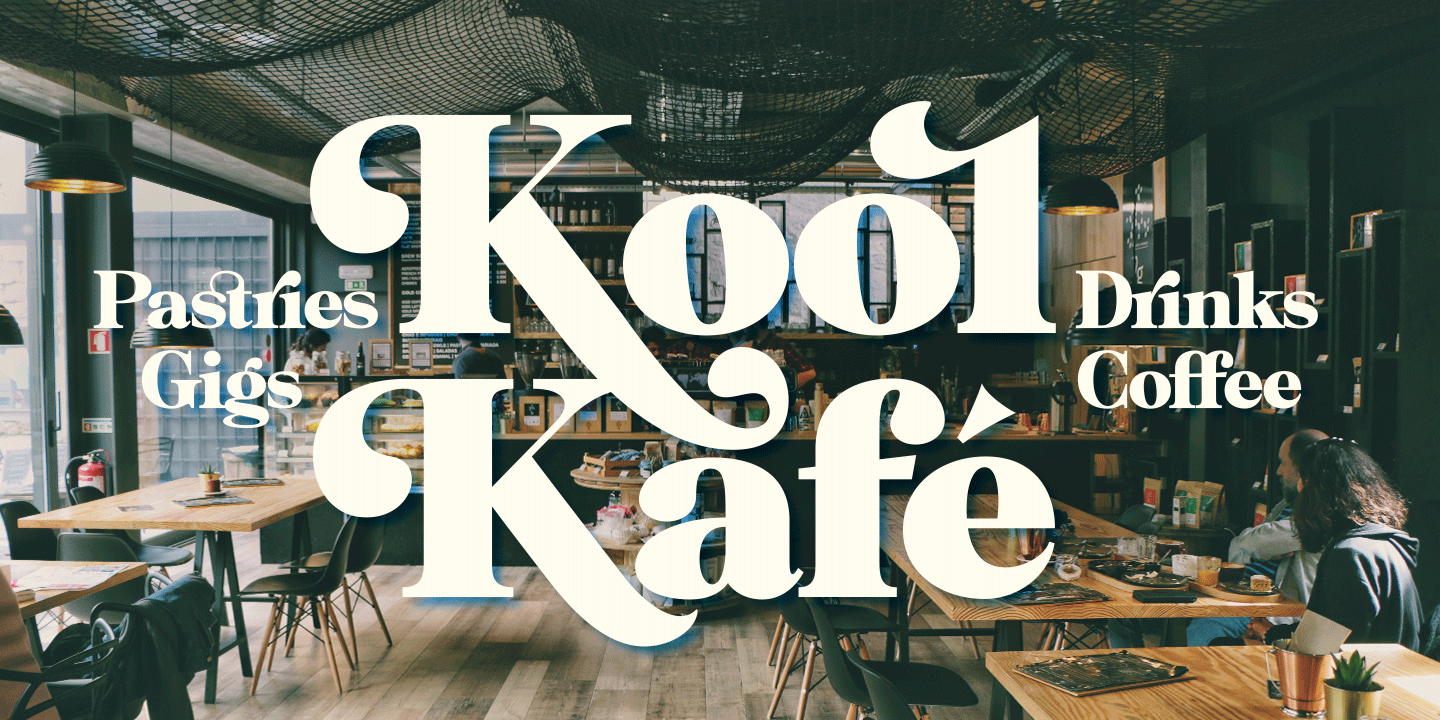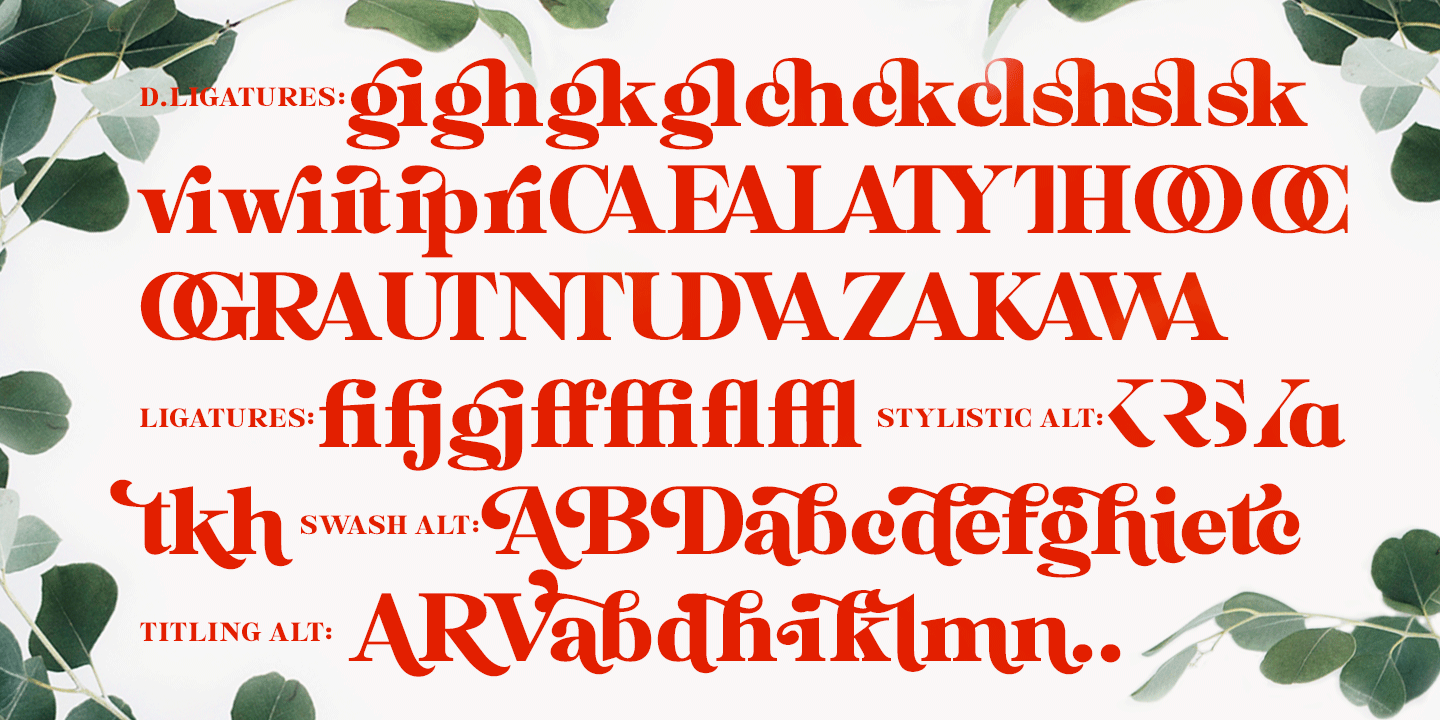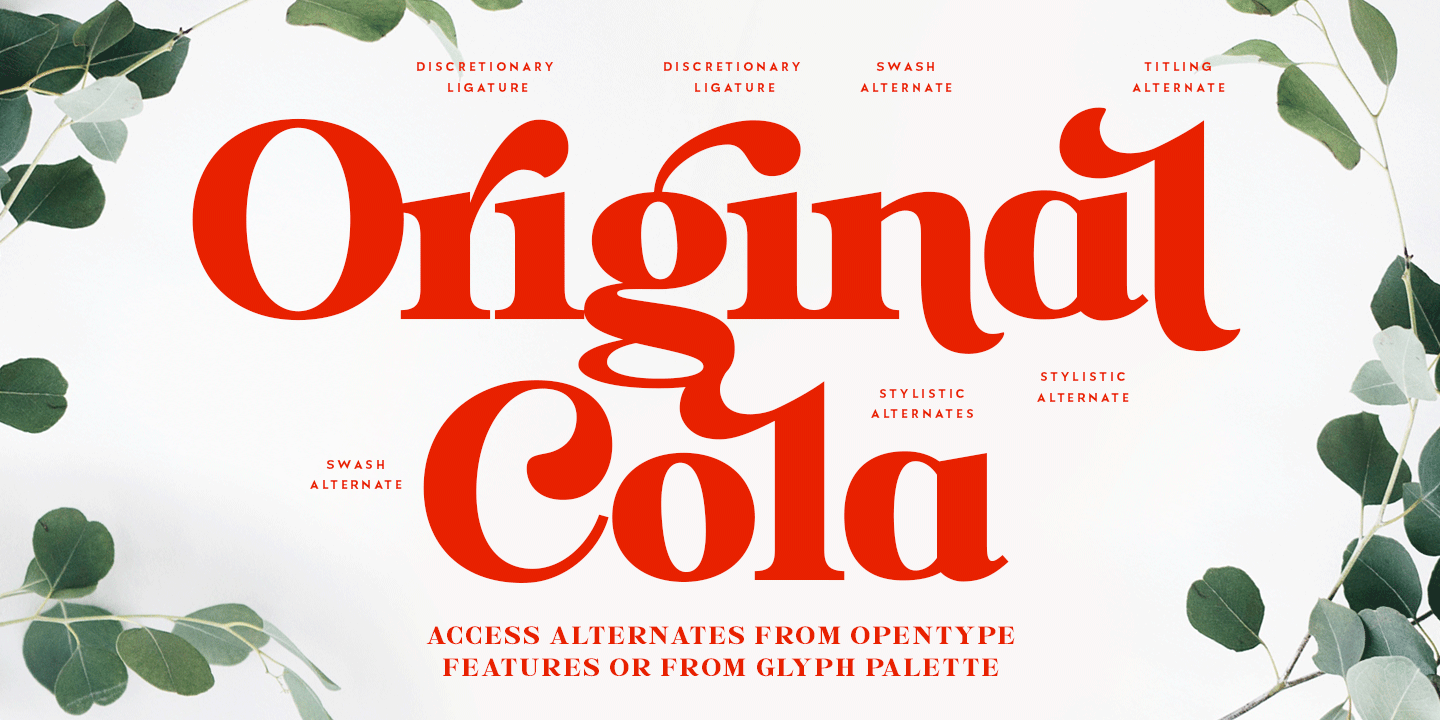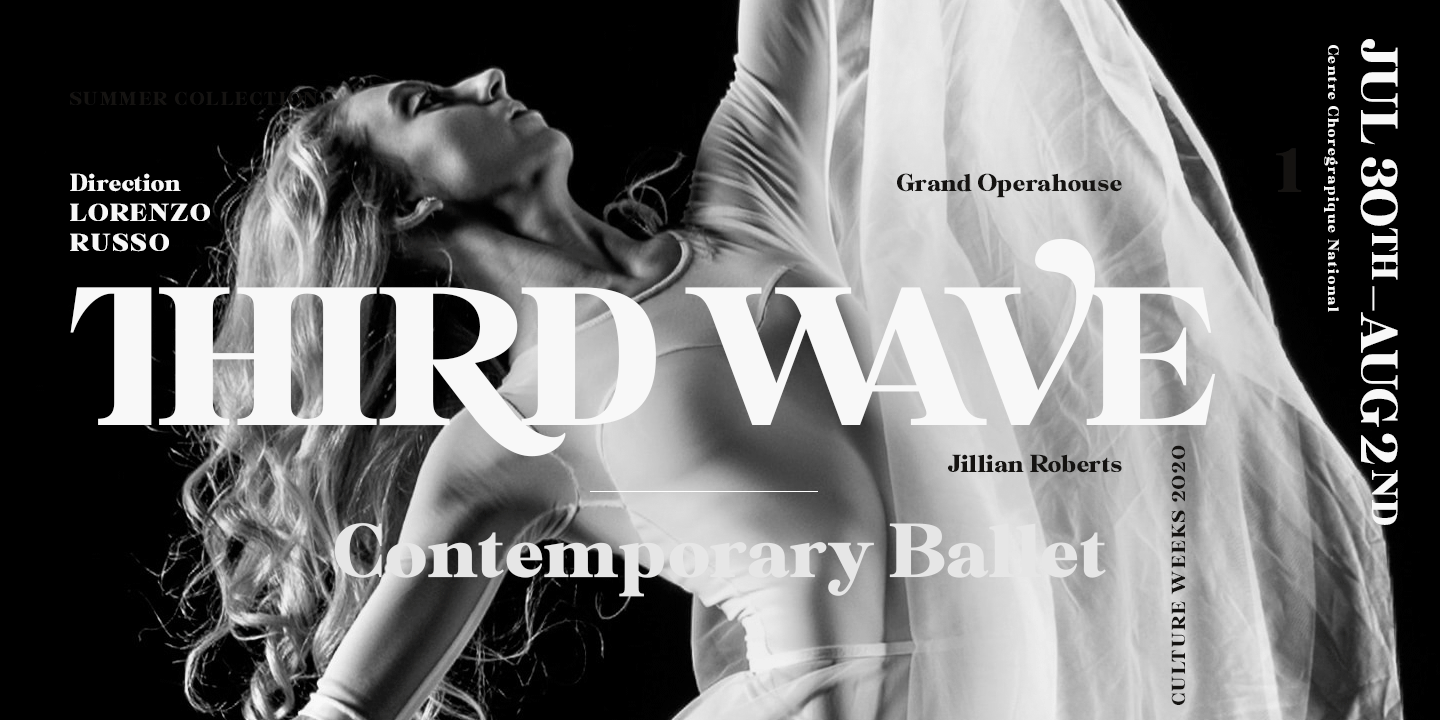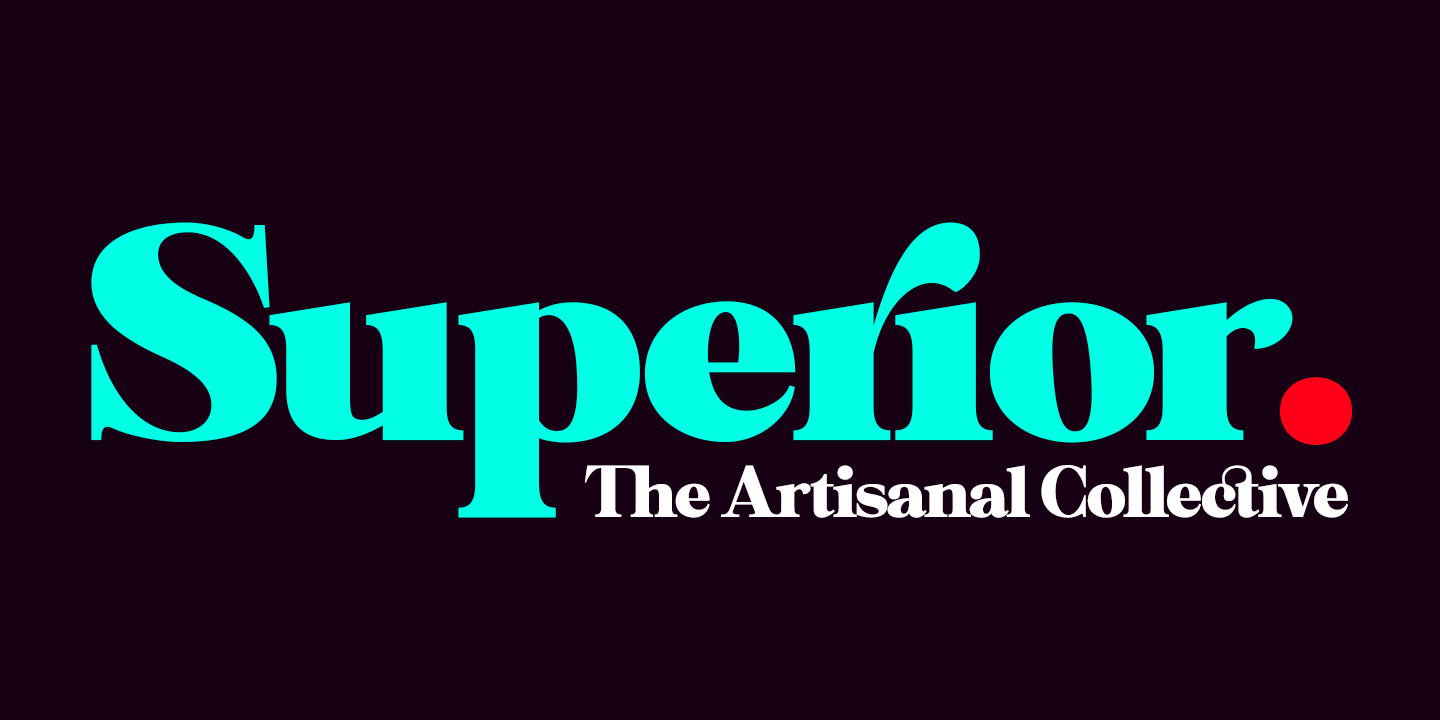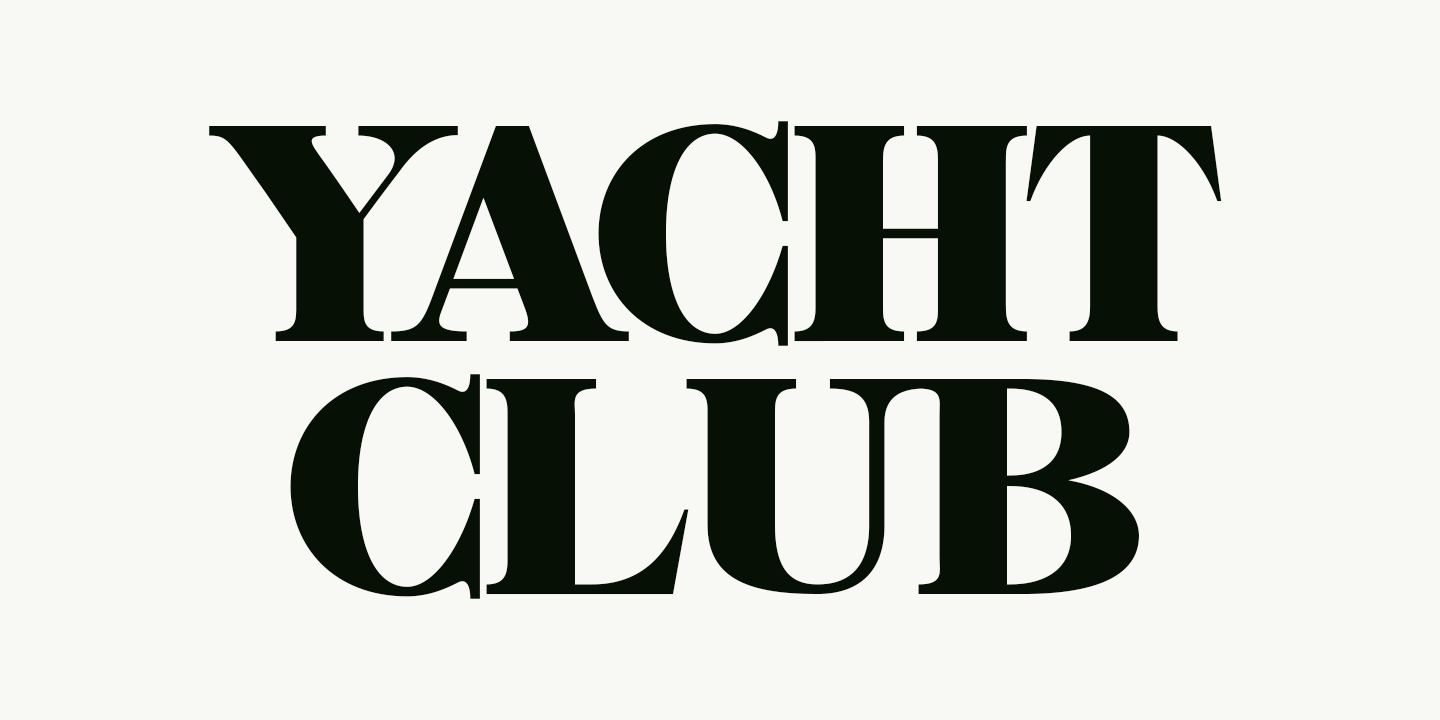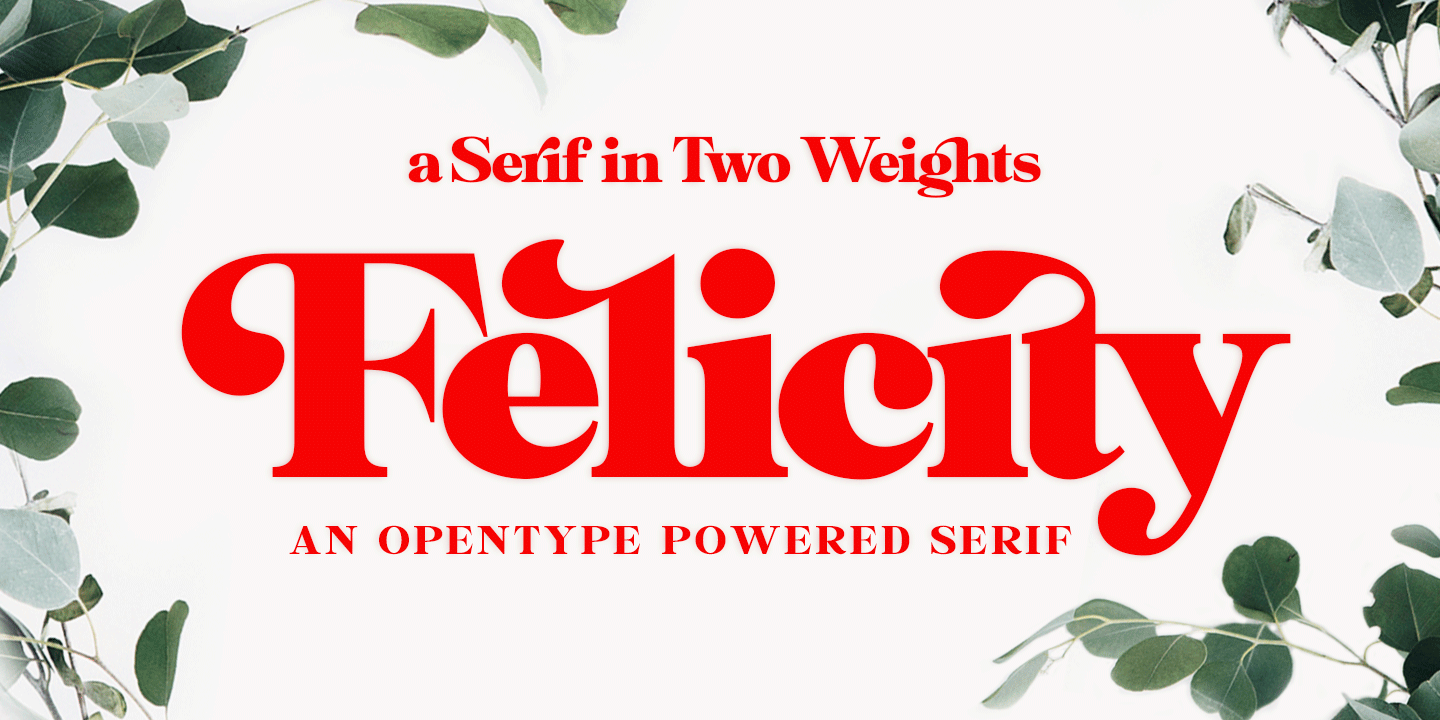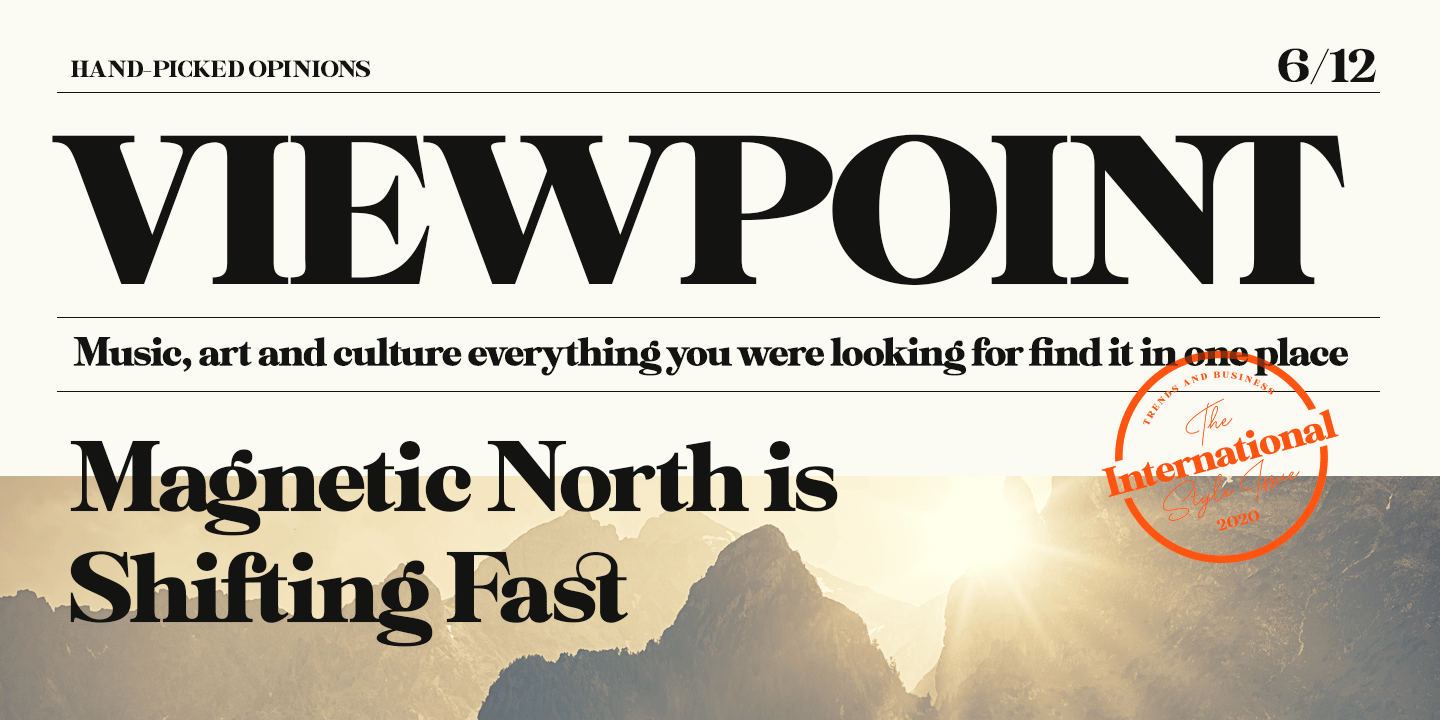
Felicity
About Felicity
Felicity is a tightly cut heavyweight display serif. Felicity has strict kerning and it creates strong looking words just by typing – but if you need even more try any of Felicity\’s many OpenType features: Discretionary Ligatures, Stylistic, Titling or…